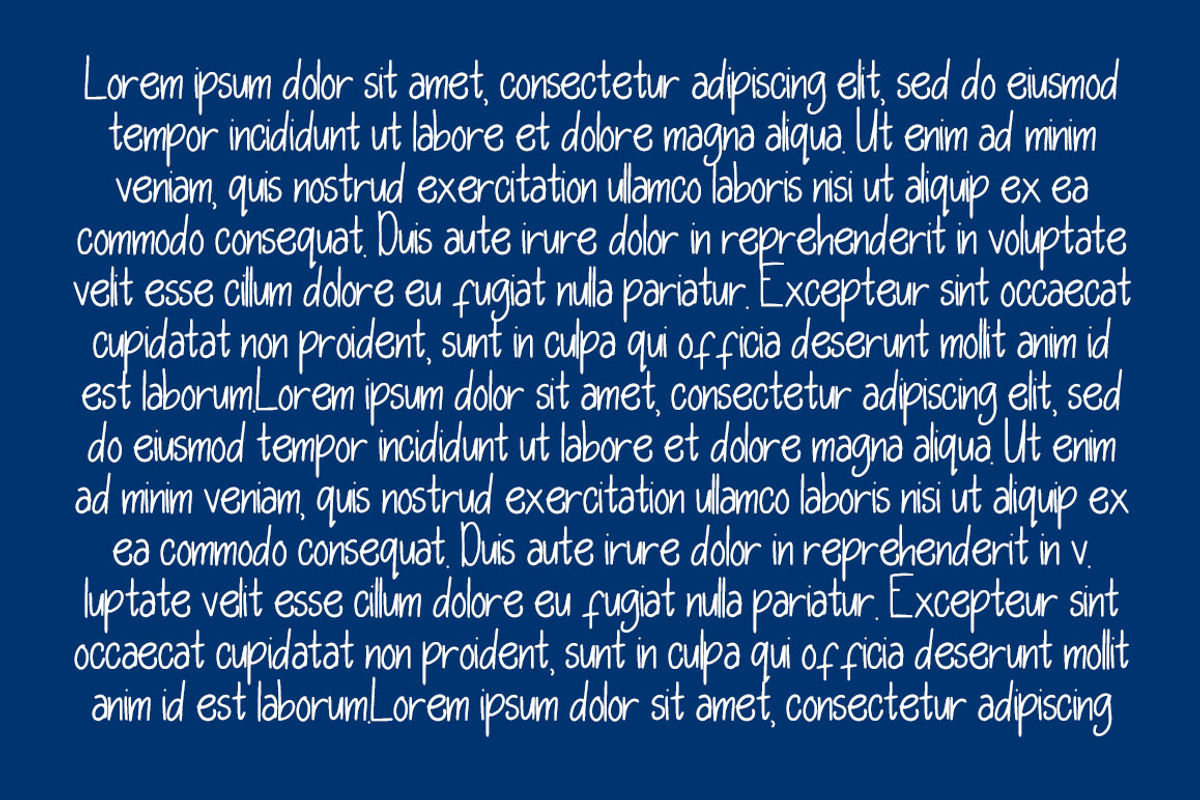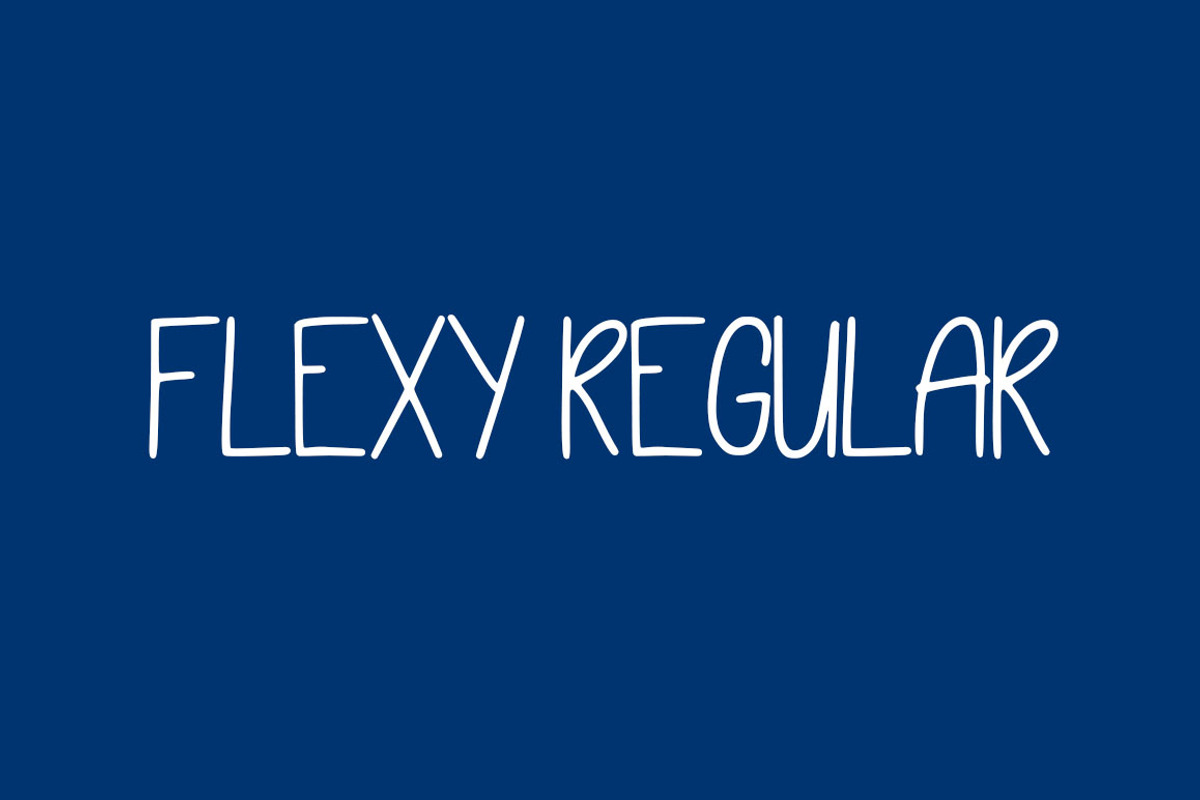
Flexy Regular Font
This font is perfect to casual and playful layouts
Why Flexy Regular Font is worth a look
Flexy Regular Font by clevidor fits naturally into Branding, posters, packaging, typography.